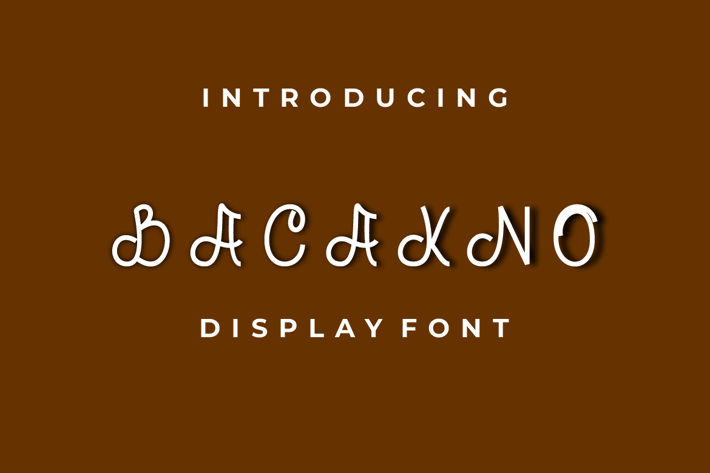
BACAKNO Font
Introducing our new product BACAKNO Font - Modern Font
BACAKNO Font - Modern Font is a bold and authentic display font. The font is suitable for any branding project like logo, t-shirt printing, esport, and many more. outstanding in a wide range of contexts.